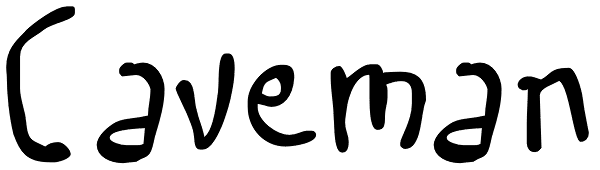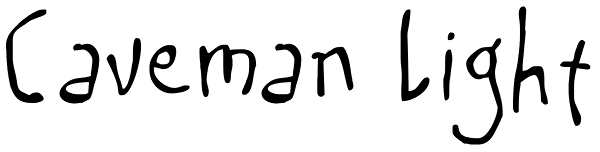
Caveman
Caveman is a very rustic font, its aspect remember the prehistoric art in the caves when the man learned how to draw and to express his emotions through the painting. It comes in four styles and two sets of very decorative dingbats.
Caveman Dingbats One
Caveman Rustic
Caveman
Caveman Light
Caveman Bold
Caveman Dingbats Two